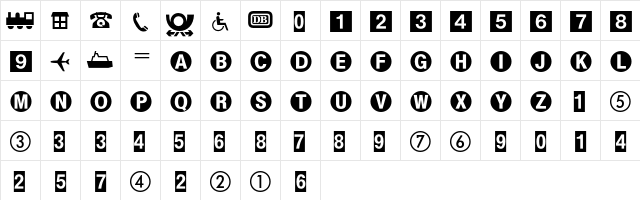
Bundesbahn Pi 1 Font Preview
Bundesbahn Pi 1
Design Context for Bundesbahn Pi Typeface
Bundesbahn Pi offers clean, dependable letterforms without strong stylistic allegiance, making it a practical choice for designers who need flexibility.